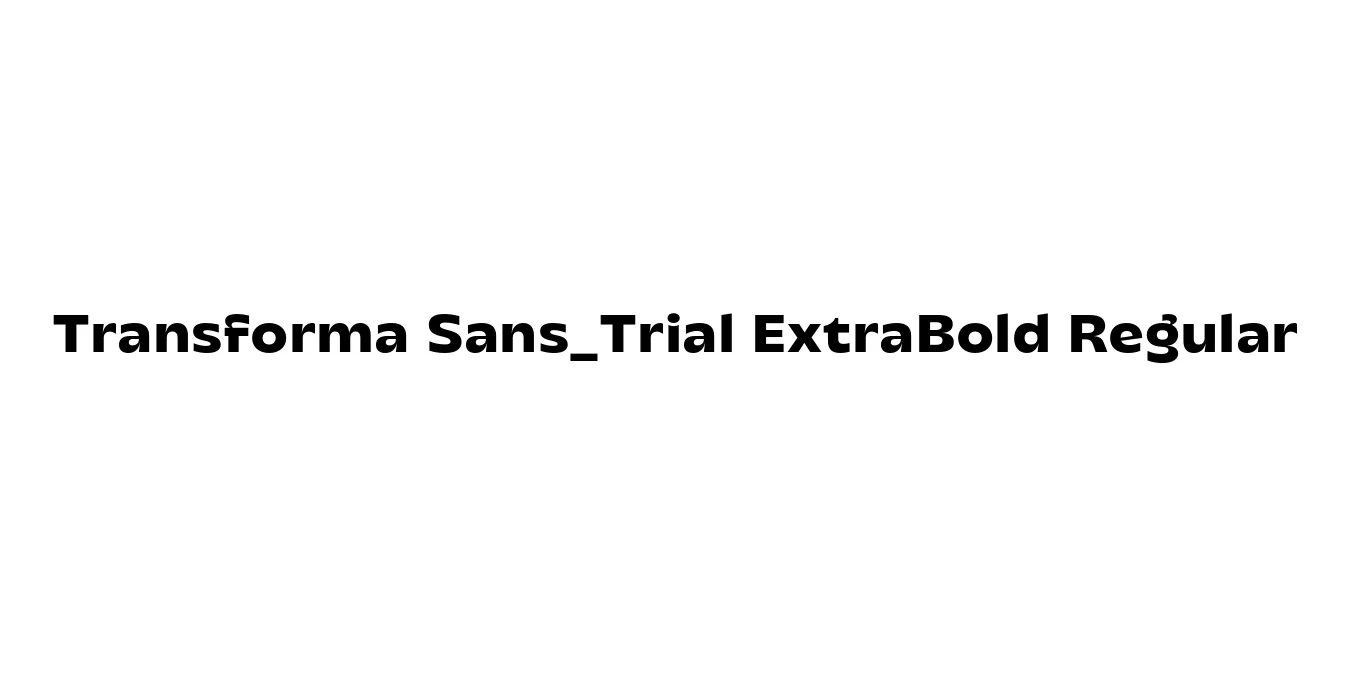
Transforma Sans_Trial ExtraBold Regular
Designed by Yury Ostromentsky and Ilya Ruderman (CSTM Fonts)
Transforma Sans is a versatile and robust typeface family designed to meet the rigorous demands of modern graphic design. The ExtraBold Regular weight provides a powerful visual impact, characterized by its geometric foundations tempered with subtle humanist touches. This weight is specifically engineered for high visibility, making it an exceptional choice for designers looking to create a strong hierarchy in their typographic layouts.
Developed as part of a larger superfamily that includes script and serif variants, Transforma Sans features a high x-height and open apertures that ensure excellent legibility across both digital and print mediums. The Trial version offers a glimpse into the font's professional-grade kerning and comprehensive character set, allowing creators to explore its potential for high-end branding, editorial design, and complex user interfaces.
Transforma Sans_Trial ExtraBold Regular Best Uses
Perfect for bold, attention-grabbing titles in magazines and posters.
Ideal for creating strong and memorable visual identities for contemporary companies.
Highly effective for hero sections and impactful landing page headers.
Excellent for high-contrast messaging in both digital social media ads and physical billboards.